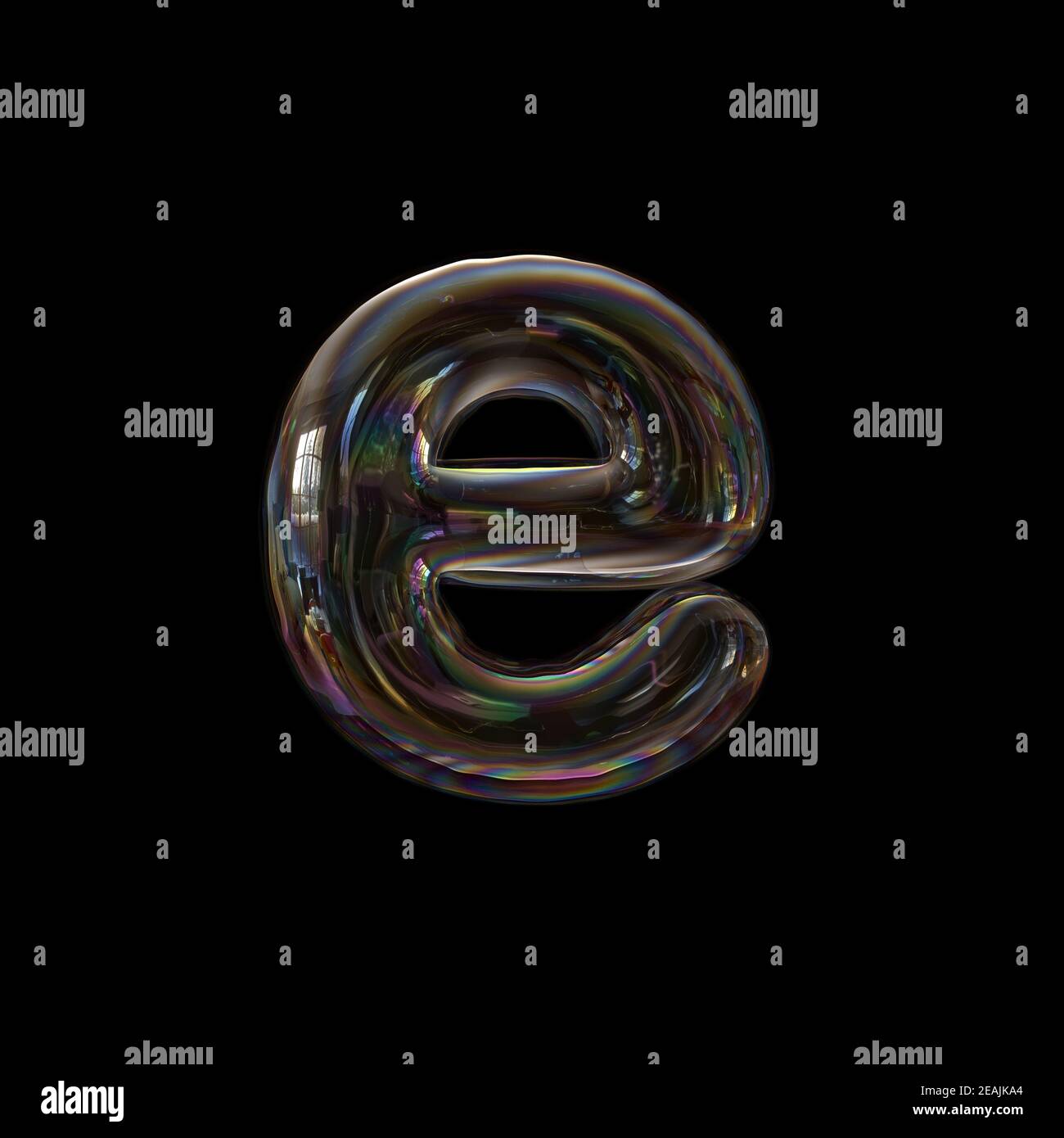
Soap bubble letter E - Lower-case 3d transparent font - childhood ...
Typography enthusiasts and designers often find themselves captivated by the intricate details of letterforms, and one such letter that stands out is the bubble letter E lowercase. This unique style of lettering has gained popularity in various design fields, from graphic design to calligraphy, due to its playful and eye-catching appearance. Understanding the nuances of the bubble letter E lowercase can enhance your design projects and add a touch of creativity to your work.
Understanding the Bubble Letter E Lowercase
The bubble letter E lowercase is a stylized version of the traditional lowercase letter 'e'. It is characterized by its rounded, inflated appearance, which gives it a playful and whimsical look. This style is often used in designs that aim to convey a sense of fun and creativity. The bubble letter E lowercase can be incorporated into various design elements, such as logos, posters, and digital art.
Historical Context and Evolution
The bubble letter style has its roots in graffiti and street art, where artists often used inflated letterforms to create bold and attention-grabbing designs. Over time, this style has evolved and been adopted by mainstream design, becoming a popular choice for various applications. The bubble letter E lowercase, in particular, has seen a resurgence in popularity due to its versatility and aesthetic appeal.
Designing the Bubble Letter E Lowercase
Creating a bubble letter E lowercase involves several steps. Here’s a detailed guide to help you design your own bubble letter E lowercase:
Step 1: Sketch the Basic Shape
Begin by sketching the basic shape of the lowercase letter 'e'. Focus on the rounded forms and ensure that the proportions are balanced. The bubble letter E lowercase should have a distinct rounded top and bottom, with a slight curve in the middle.
Step 2: Add Inflation
Next, inflate the letter by adding volume to the basic shape. This involves rounding out the edges and adding curves to create a more three-dimensional appearance. The goal is to make the letter look like it has been blown up, hence the term "bubble."
Step 3: Refine the Details
Refine the details by adding shading and highlights to give the letter depth. Use darker shades to create shadows and lighter shades to create highlights. This will enhance the three-dimensional effect and make the bubble letter E lowercase stand out.
Step 4: Finalize the Design
Once you are satisfied with the design, finalize it by adding any additional elements or embellishments. This could include adding a background, incorporating other bubble letters, or using different colors to enhance the overall aesthetic.
📝 Note: When designing the bubble letter E lowercase, it's important to maintain consistency in the style and proportions. This will ensure that the letter looks cohesive and visually appealing.
Applications of the Bubble Letter E Lowercase
The bubble letter E lowercase can be used in a variety of applications, from digital art to print media. Here are some common uses:
• Logos and Branding: The bubble letter E lowercase can be incorporated into logos and branding materials to create a unique and memorable identity.
• Posters and Flyers: Use the bubble letter E lowercase in posters and flyers to grab attention and convey a sense of fun and creativity.
• Digital Art: Incorporate the bubble letter E lowercase into digital art projects to add a playful and whimsical touch.
• Calligraphy and Hand Lettering: The bubble letter E lowercase can be used in calligraphy and hand lettering projects to create stylized and eye-catching designs.
Tools and Software for Designing Bubble Letters
There are several tools and software options available for designing bubble letters, including the bubble letter E lowercase. Here are some popular choices:
• Adobe Illustrator: A powerful vector graphics editor that allows you to create detailed and scalable bubble letters.
• Procreate: A digital illustration app for iPad that offers a wide range of brushes and tools for creating bubble letters.
• Inkscape: A free and open-source vector graphics editor that is great for designing bubble letters.
• SketchBook: A digital sketching and painting application that is ideal for creating bubble letters with a hand-drawn feel.
Tips for Enhancing Your Bubble Letter E Lowercase Designs
Here are some tips to help you enhance your bubble letter E lowercase designs:
• Experiment with Colors: Use a variety of colors to add vibrancy and depth to your designs. Bright and bold colors can make the bubble letter E lowercase stand out.
• Add Textures: Incorporate textures to give your bubble letter E lowercase a more tactile and realistic appearance. This can be done using digital brushes or overlays.